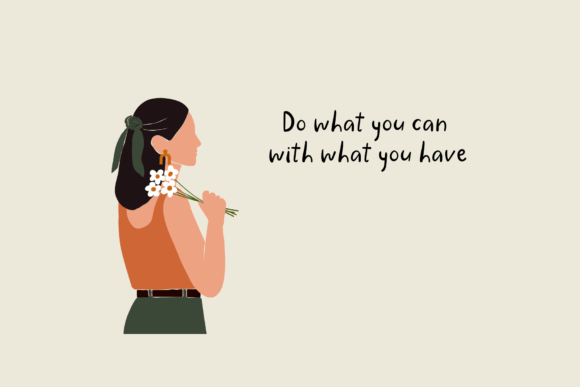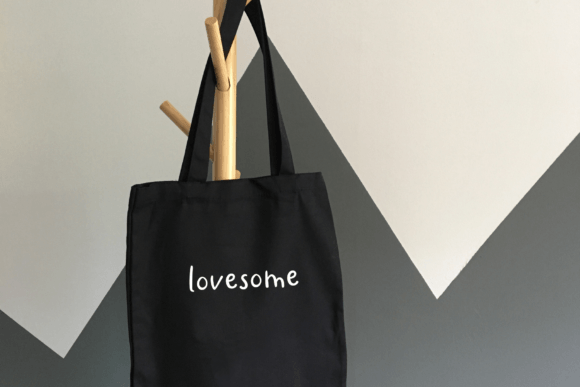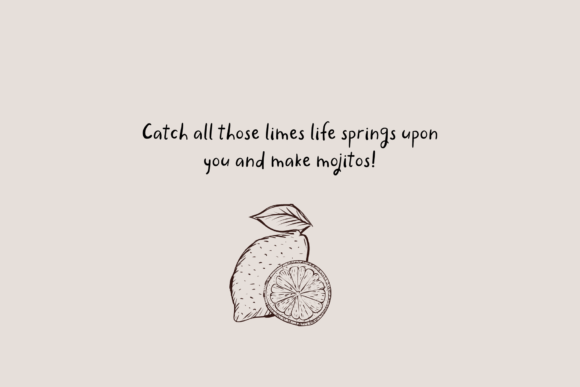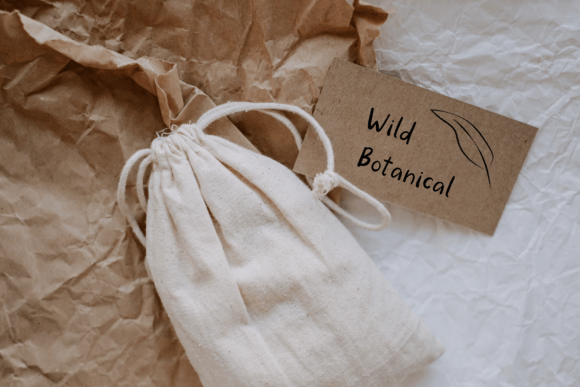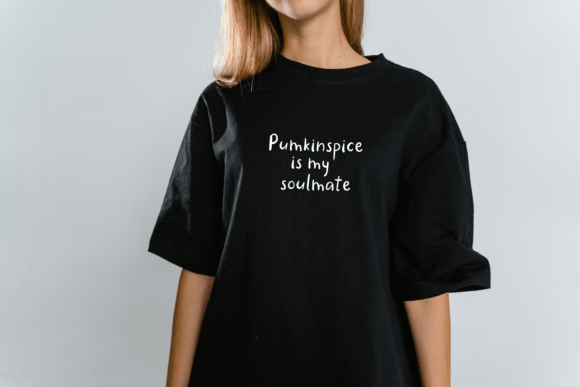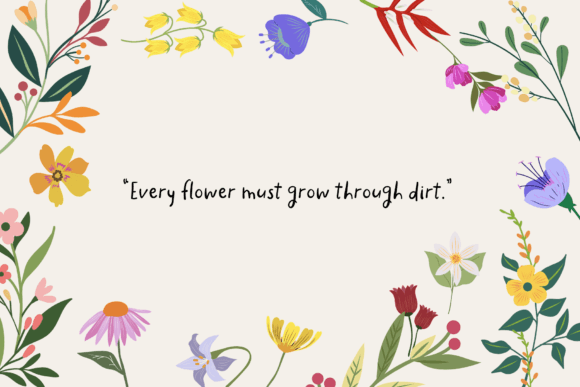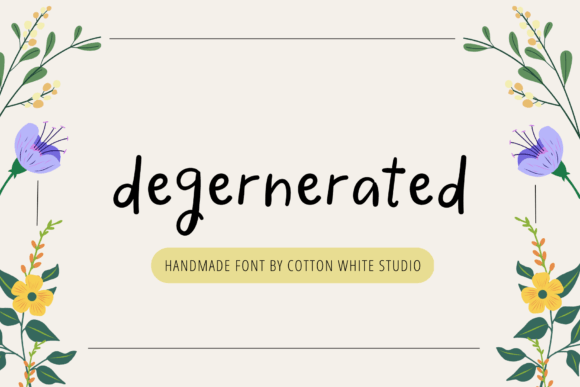
Add a Touch of Whimsy to Your Designs with Degenerated Font
Are you tired of using the same old fonts in your designs? Do you want to add a touch of personality and charm to your work? Look no further than Degenerated Font, the adorable and cute font that’s perfect for any project that needs a dash of whimsy. In this article, we’ll explore the features and benefits of Degenerated Font, and show you how to incorporate it into your designs to make them stand out.
What is Degenerated Font?
Degenerated Font is a unique and playful font that’s designed to bring a smile to your face. With its irregular shapes and quirky charm, this font is perfect for designers and crafters who want to add a touch of personality to their work. Whether you’re creating greeting cards, invitations, social media graphics, or branding materials, Degenerated Font is the perfect choice.
Features of Degenerated Font
- Unique and Playful Design: Degenerated Font has a one-of-a-kind design that’s sure to grab attention. Its irregular shapes and quirky charm make it perfect for designs that need a touch of whimsy.
- Highly Versatile: Degenerated Font can be used for a wide range of projects, from greeting cards and invitations to social media graphics and branding materials.
- Easy to Read: Despite its playful design, Degenerated Font is easy to read and understand, making it perfect for body text and headlines.
- Customizable: Degenerated Font can be customized to fit your design needs. You can adjust the size, color, and style to match your brand’s personality.
Benefits of Using Degenerated Font
So why should you use Degenerated Font in your designs? Here are just a few benefits:
- Adds Personality to Your Designs: Degenerated Font adds a touch of personality and charm to your designs, making them stand out from the crowd.
- Perfect for Whimsical Designs: If you’re creating designs that need a touch of whimsy, such as greeting cards or social media graphics, Degenerated Font is the perfect choice.
How to Use Degenerated Font in Your Designs
Using Degenerated Font in your designs is easy. Here are a few tips:
- Choose the Right Size: Choose a size that’s large enough to be readable, but small enough to fit your design.
- Experiment with Colors: Degenerated Font looks great in a variety of colors. Experiment with different colors to find the one that works best for your design.
- Pair with Other Fonts: Degenerated Font pairs well with other fonts. Try pairing it with a bold font for headlines or a script font for added elegance.
Examples of Degenerated Font in Action
Degenerated Font is a versatile font that can be used in a wide range of designs. Here are a few examples:
- Greeting Cards: Degenerated Font is perfect for greeting cards, adding a touch of whimsy and charm to your designs.
- Invitations: Use Degenerated Font to create invitations that are both playful and elegant.
- Social Media Graphics: Degenerated Font is great for social media graphics, adding a touch of personality to your posts and stories.
- Branding Materials: Use Degenerated Font to create branding materials that are both playful and professional.
Degenerated Font is a unique and playful font that’s perfect for designers and crafters who want to add a touch of whimsy to their work. With its irregular shapes and quirky charm, this font is sure to grab attention and bring a smile to your face. Whether you’re creating greeting cards, invitations, social media graphics, or branding materials, Degenerated Font is the perfect choice. So why not give it a try and add some sweetness to your designs?